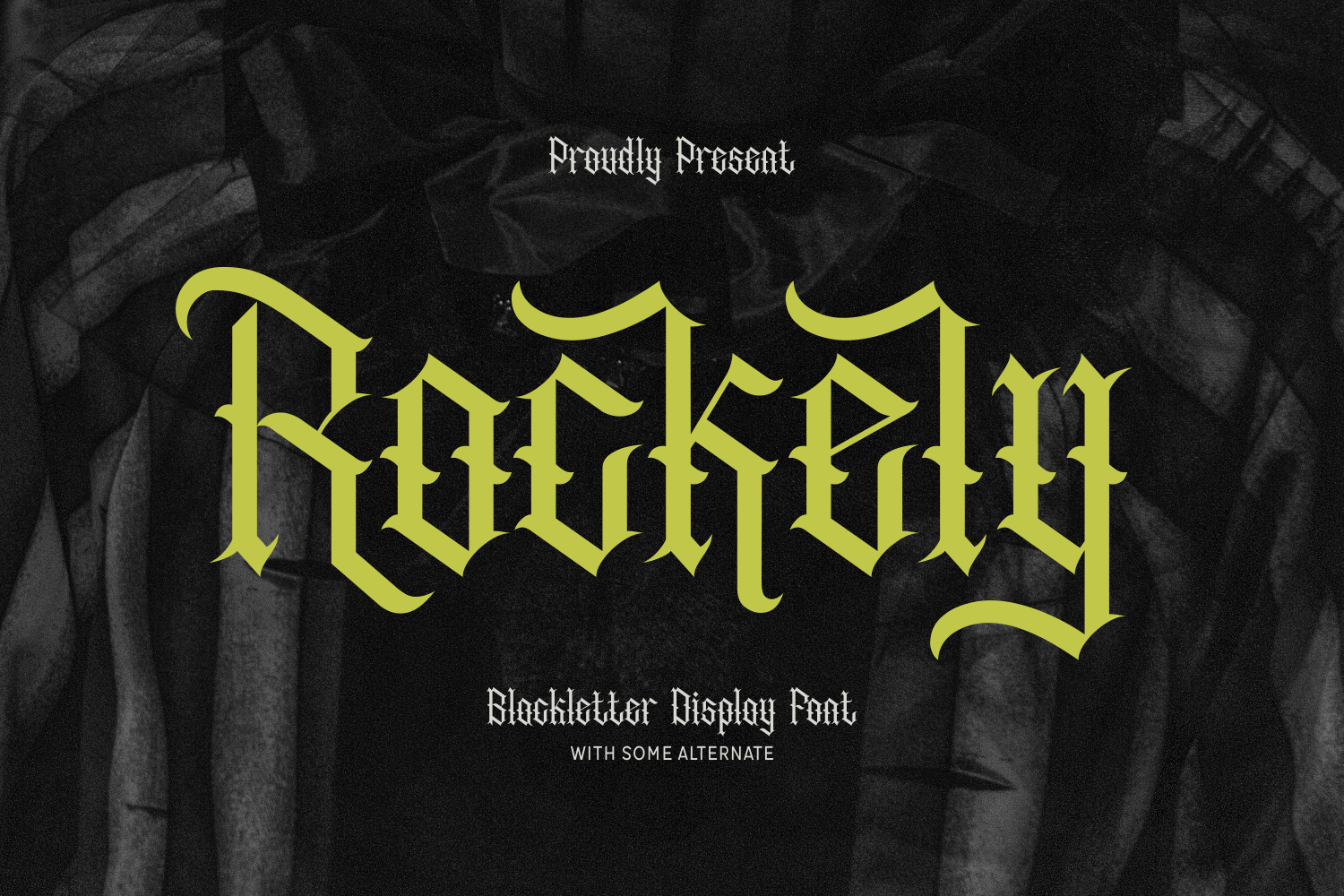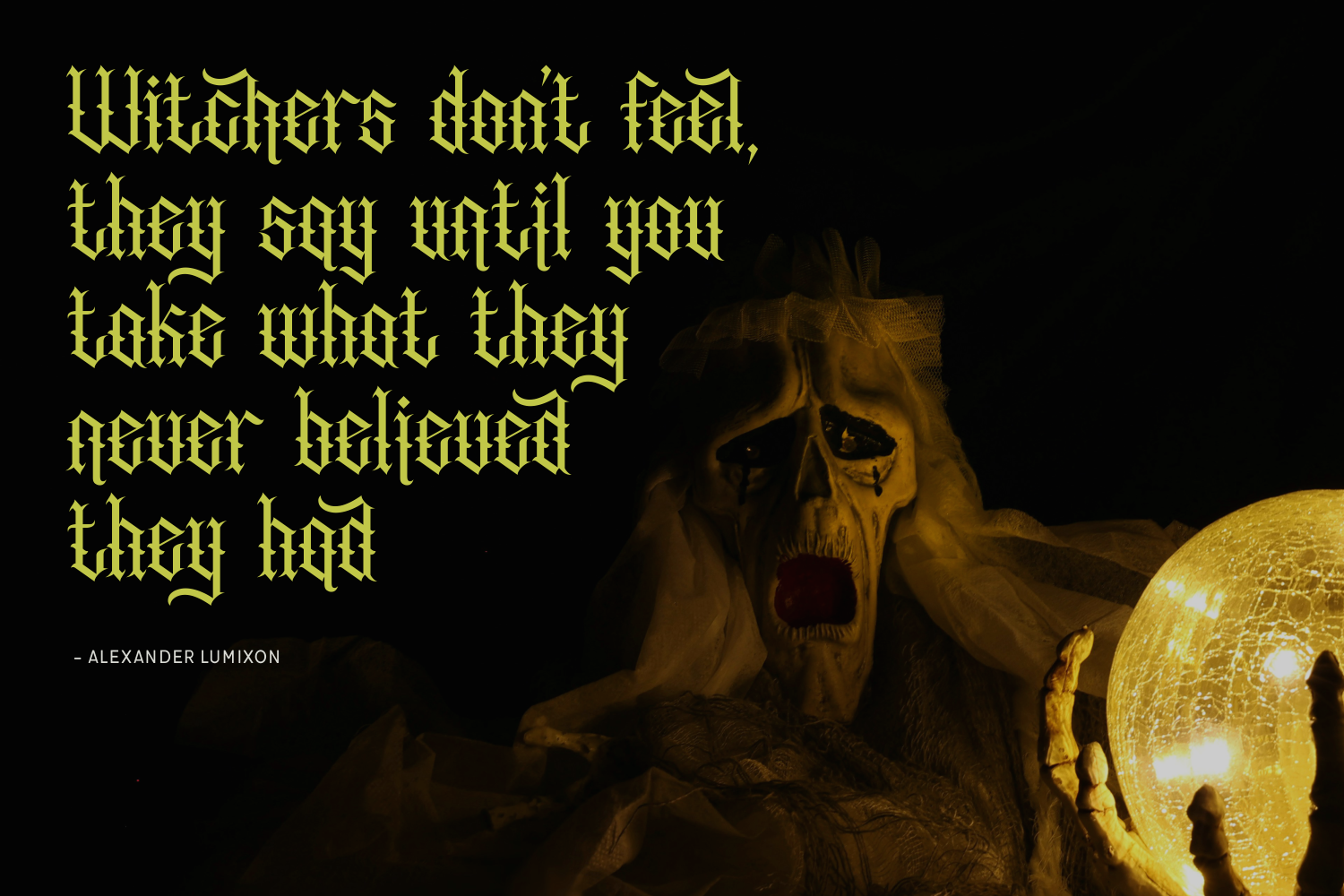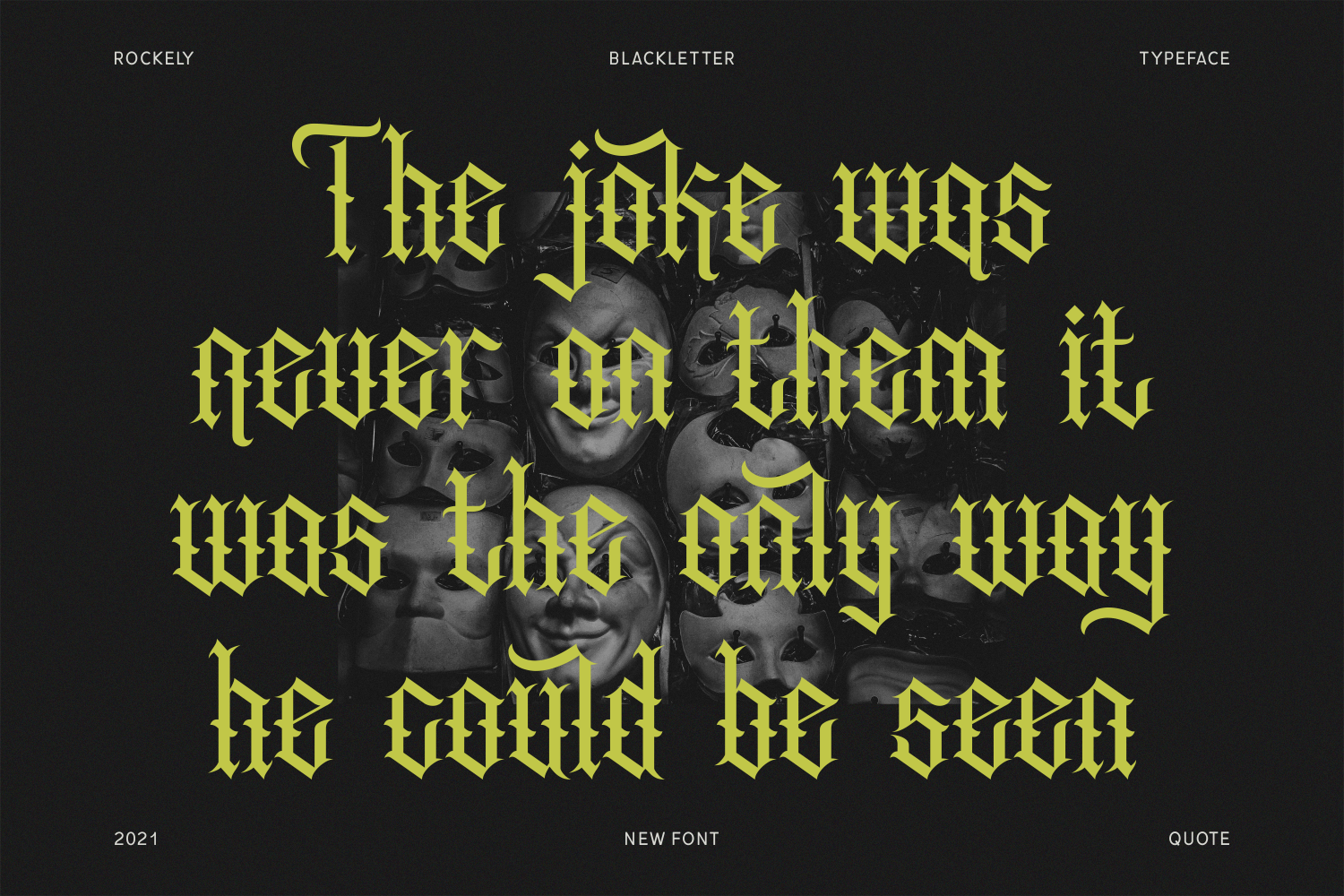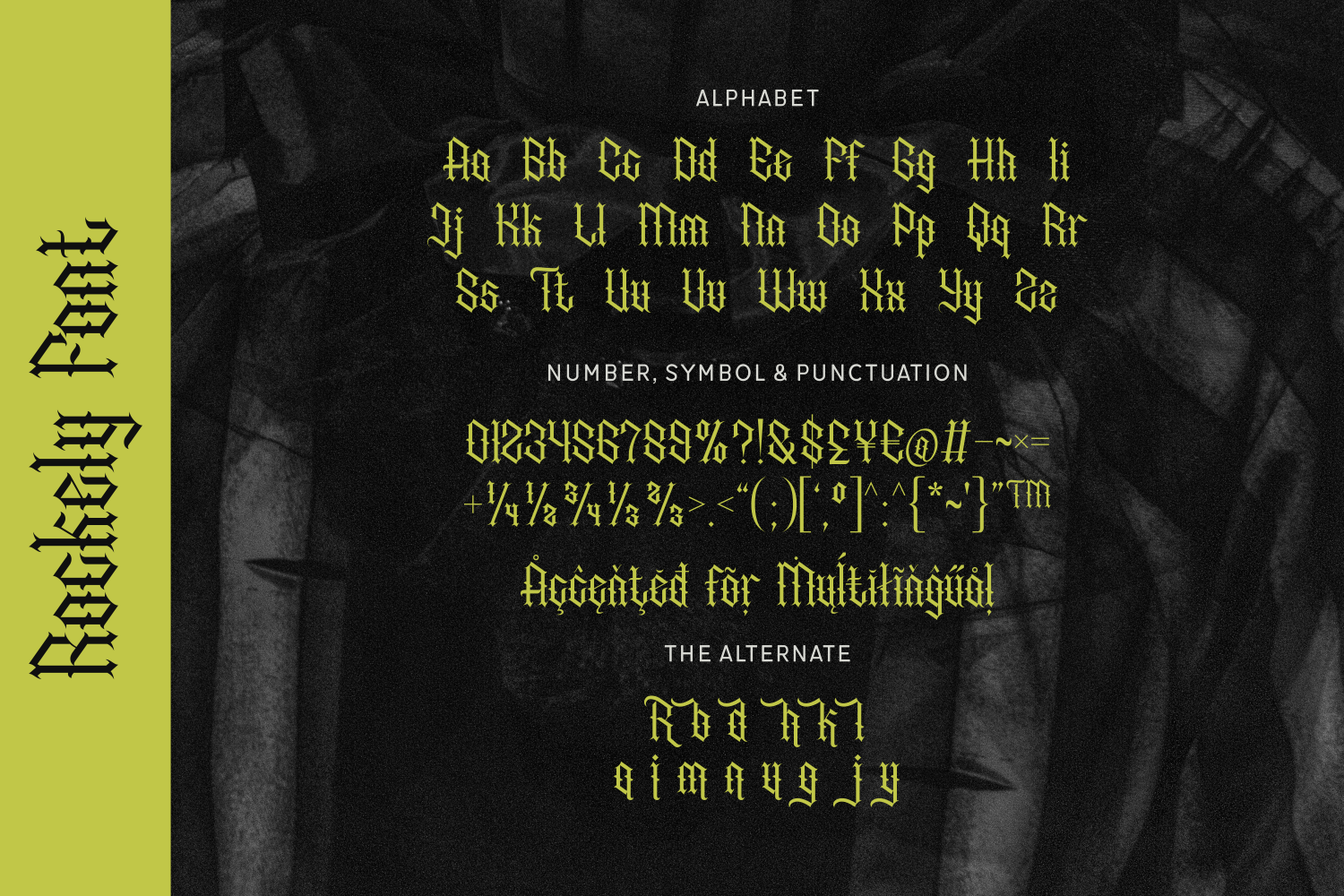
Rockely is a bold blackletter display font with edgy curves and striking medieval influences. Perfect for rock band logos, dark posters, and dramatic gothic branding.